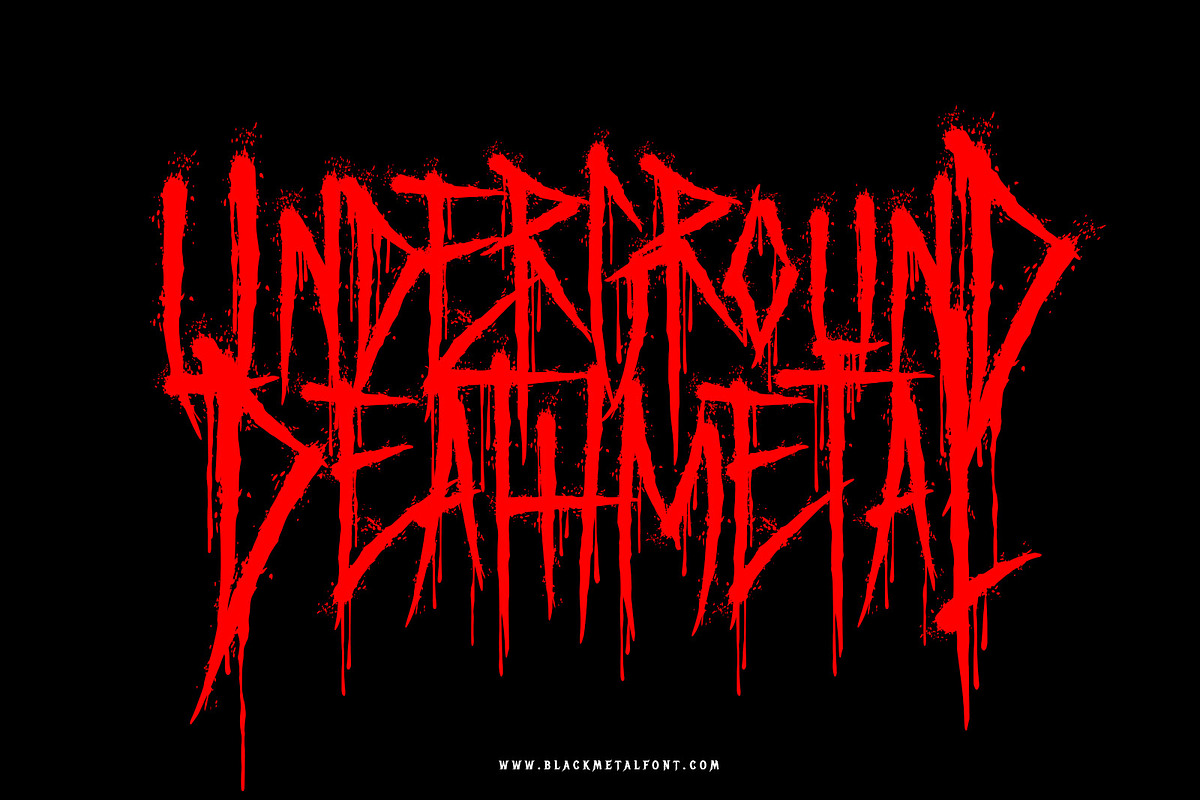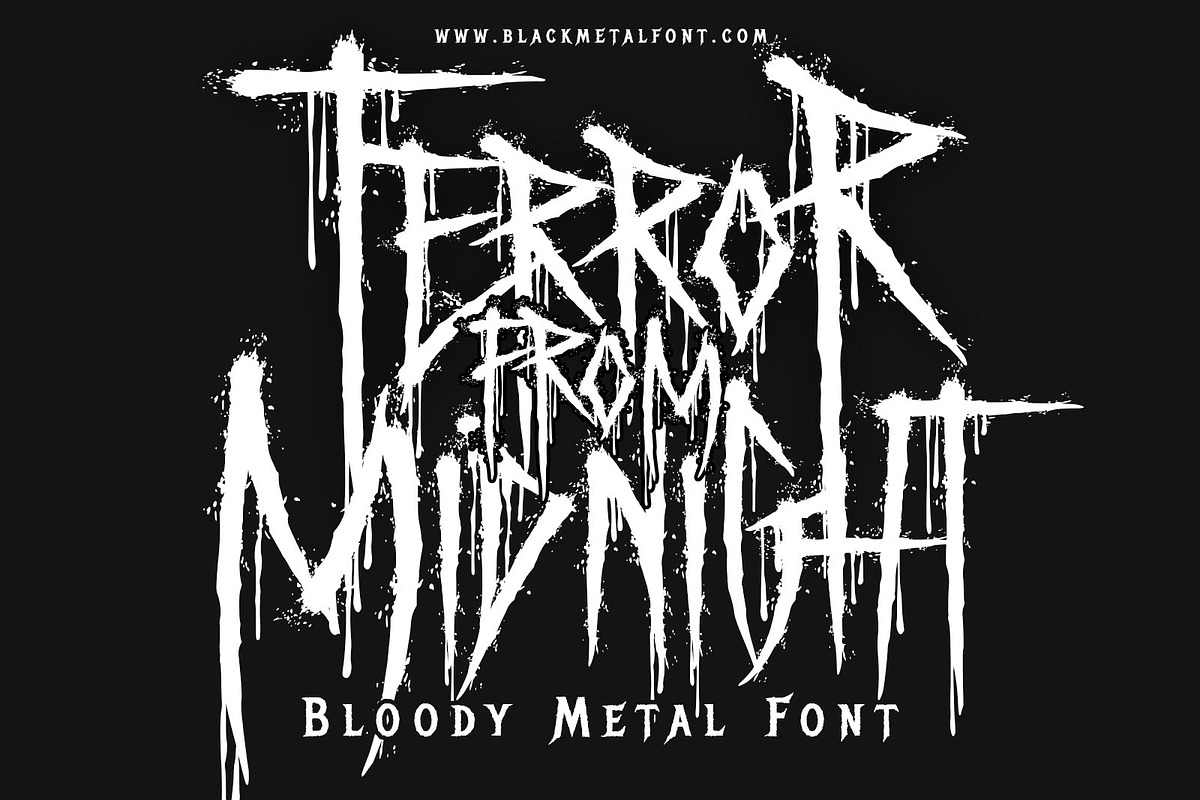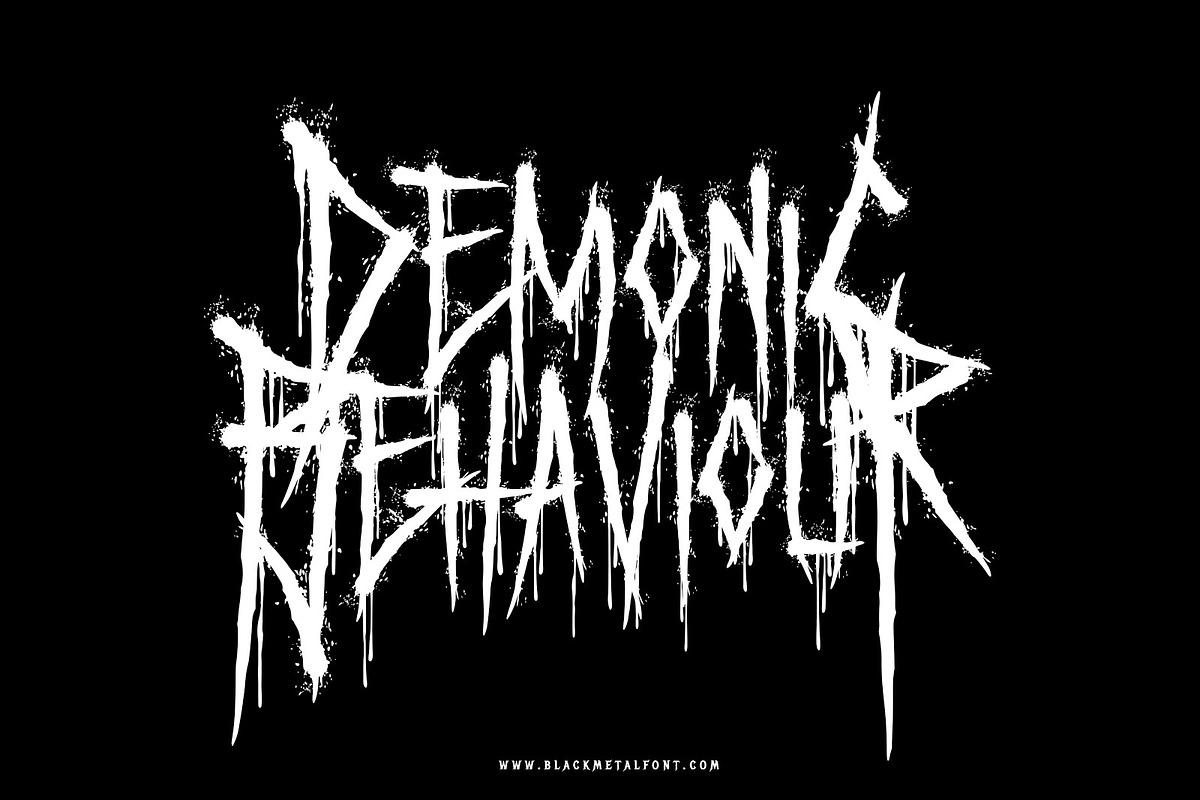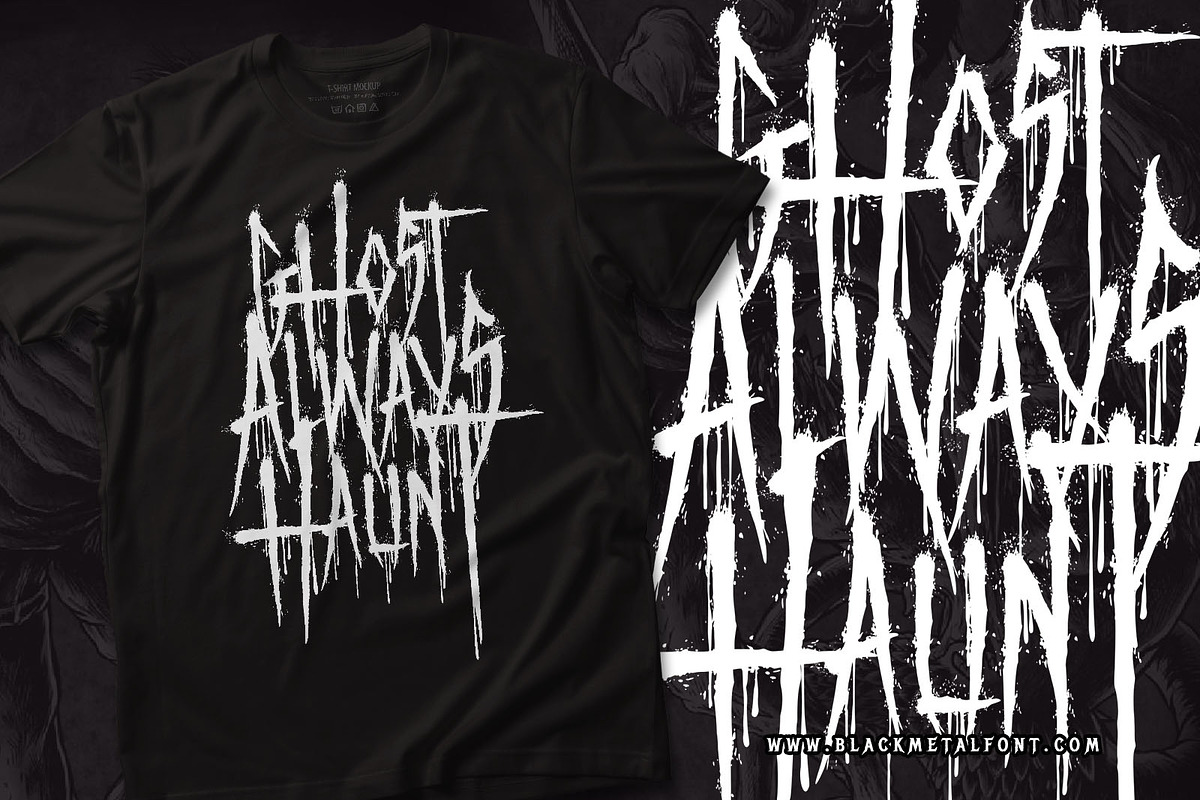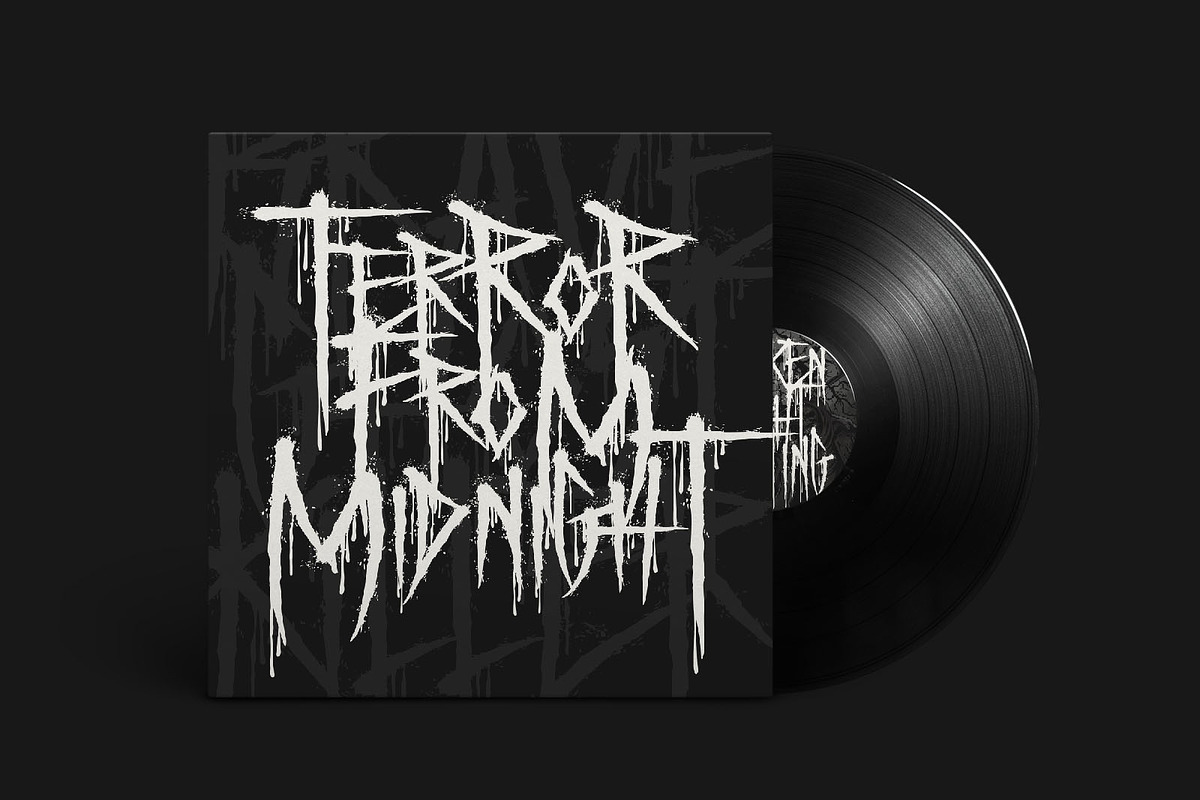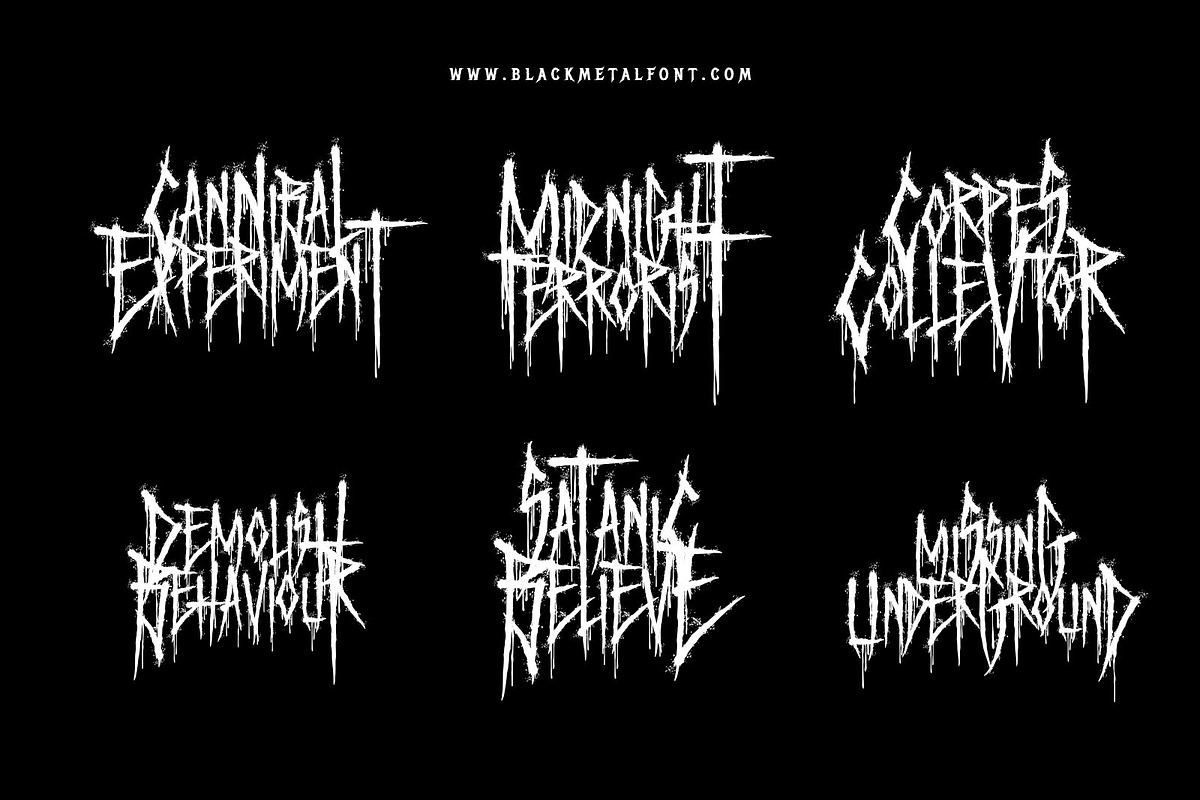
Terror From Midnight - Death Metal
Terror from Midnight is awesome death metal font. Comes with Uppercase and lowercase characters. This font is great for any gore/metal/brutal design purposes. Terror from Midnight is awesome for your logo, your band, for merchandise, for clothing, and movie title/poster